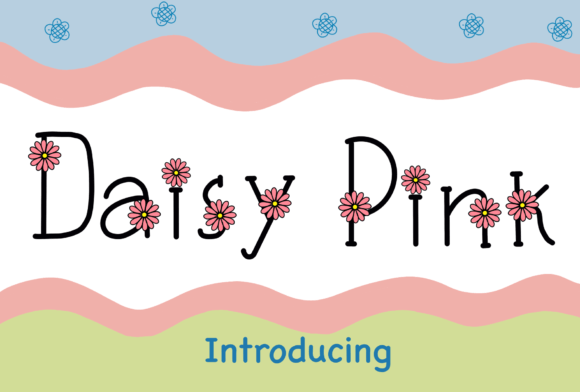
Journey into the whimsical world of Daisy Pink Font, a display font family that exudes charm and simplicity, captivating hearts with its delicate strokes and playful personality. Crafted with meticulous attention to detail by the talented Itme_digitalart, Daisy Pink Font embodies the essence of fun and creativity, inviting you to embark on a typographic adventure.
Designed to evoke the joyous spirit of Easter, Daisy Pink Font is the perfect choice for adding a touch of whimsy to your Easter-themed designs. Its enchanting curves and cheerful vibe make it an ideal font for creating eye-catching Easter cards, invitations, gift tags, and social media posts that are sure to spread joy and excitement.
But Daisy Pink Font's versatility extends far beyond the Easter season. Its simple and easy-to-read style makes it a versatile choice for a wide range of applications, from education and advertising to illustration and multi-purpose use. Whether you're creating teaching materials, brochures, flyers, posters, or any other design project, Daisy Pink Font will add a touch of creativity and charm that is sure to leave a lasting impression.
With its clean lines and modern aesthetic, Daisy Pink Font is perfect for adding a touch of sophistication to your designs. Its delicate strokes and playful personality make it an ideal choice for creating logos, branding materials, and website designs that exude a sense of warmth and approachability.